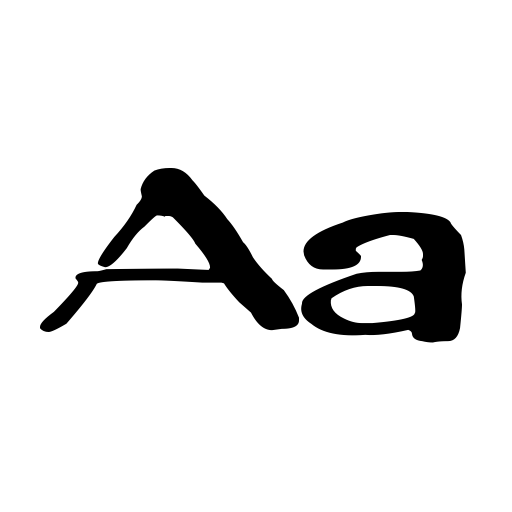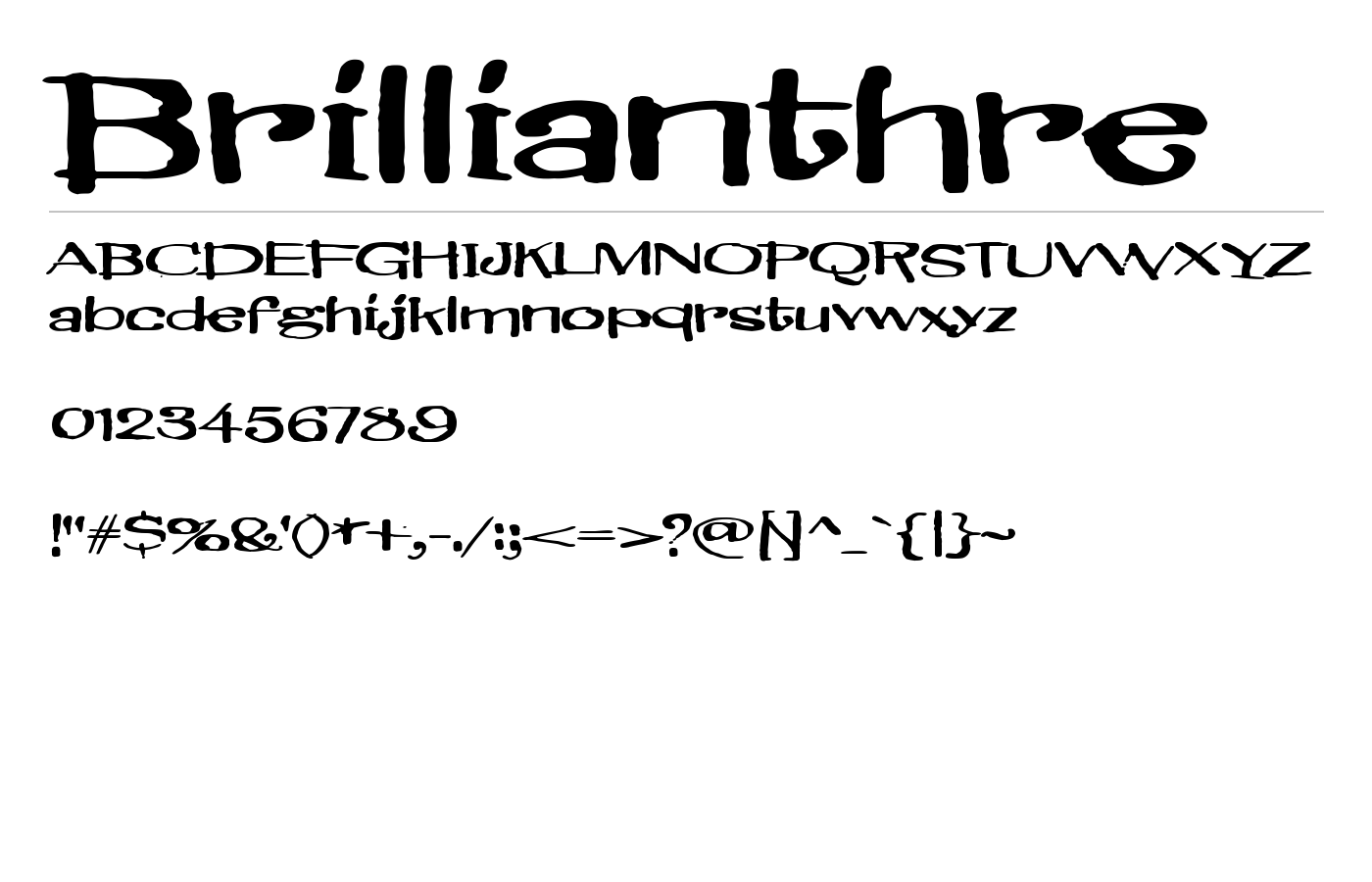
Brillianthre is a creative, hand-drawn serif font that blends playful irregularity with a touch of rustic charm. Its uneven, textured strokes and quirky letterforms give it a casual, artistic vibe, making it perfect for projects that want to feel approachable and unique. Ideal for invitations, posters, and creative branding, Brillianthre adds personality and warmth where a standard font might feel too formal or sterile.
Brillianthre Font
About Brillianthre Font
| Font family | Brillianthre Font |